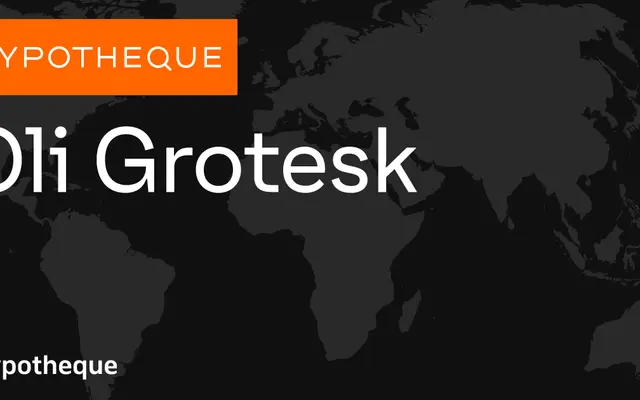
Oli Grotesk specimen from Typotheque
A grotesque sans from Typotheque spanning eight weights from Hairline to Black, each with a matching italic.
Sixteen styles cover the full range from Hairline to Black with corresponding italics, giving the family enough span for both delicate display settings and heavier text work. The naming convention, with each style named after a different world city, is a nod to Typotheque's longstanding interest in global typographic coverage. The page offers limited detail on specific design intent, but the face sits comfortably within the contemporary European grotesque tradition.
Named a grotesk and presenting the characteristic single-storey forms and even stroke contrast of the grotesque tradition, with a wide weight range from Hairline to Black.